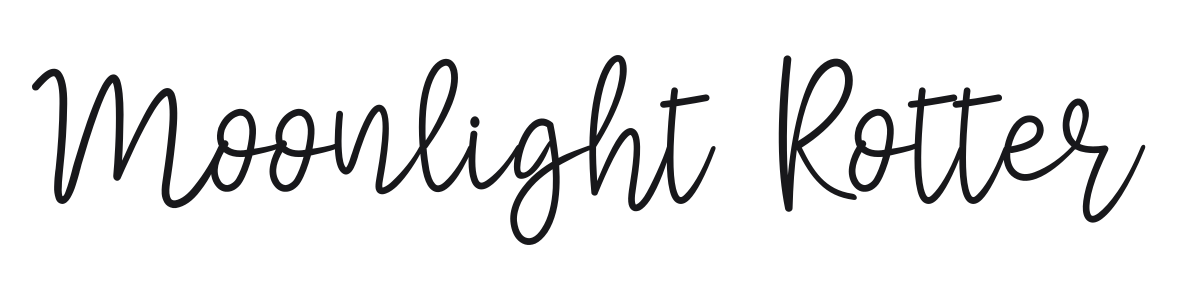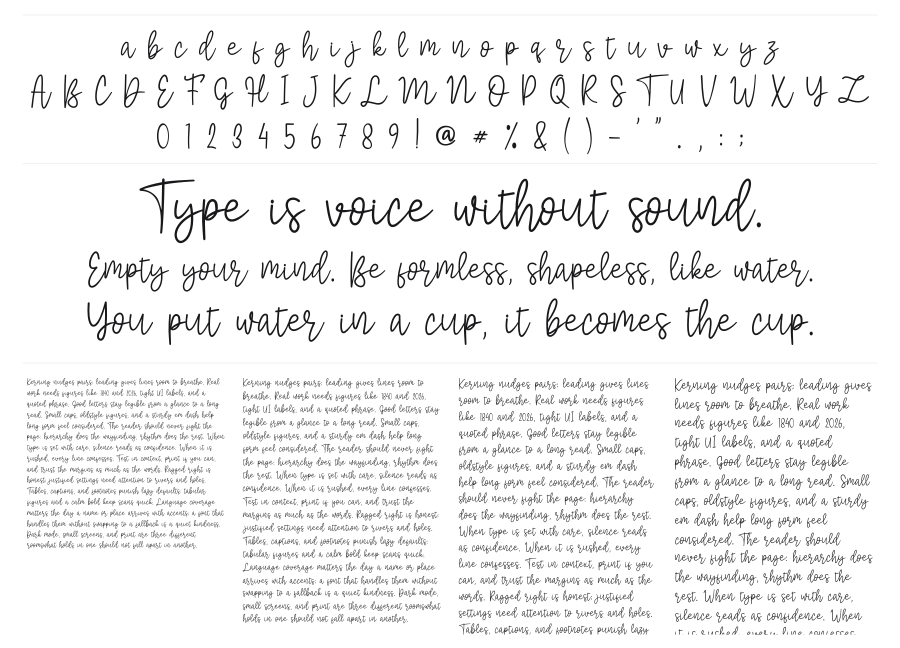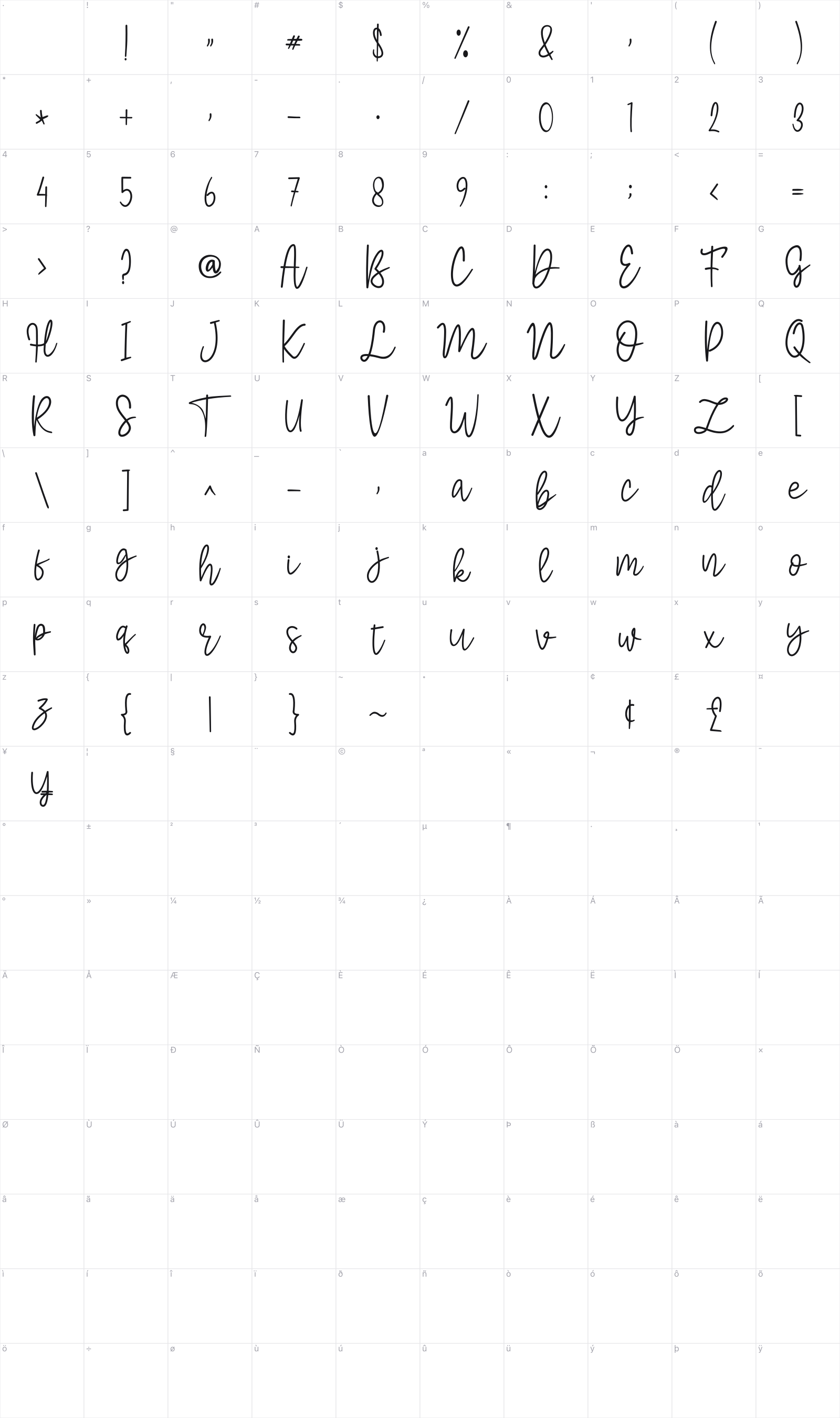
Moonlight Rotter
Moonlight Rotter is a flowing casual script with thin continuous strokes and looping ascenders that give it an easy, natural handwritten feel. The minimal stroke contrast and relaxed oval forms keep it light and approachable without sacrificing elegance. It suits wedding stationery, packaging, and branding where a personal, handcrafted touch is needed.